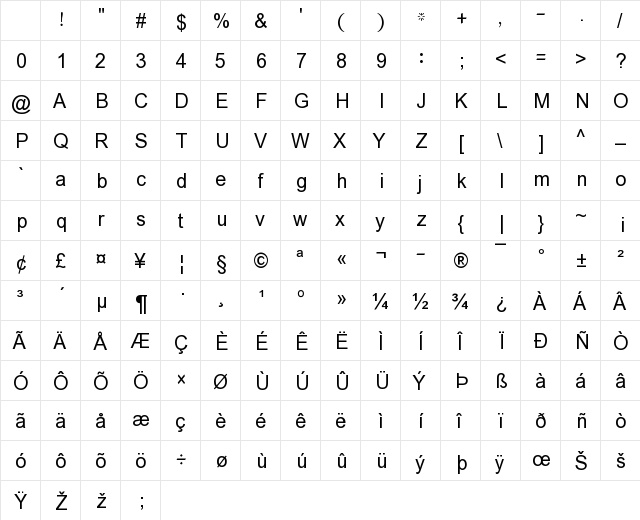
Complete AlQalam Taj Nastaleeq Regular glyph index. Displaying only characters natively supported by AlQalam Taj Nastaleeq Regular font.
AlQalam Taj Nastaleeq is a composed and adaptable typeface that performs quietly and consistently across a wide range of design contexts.